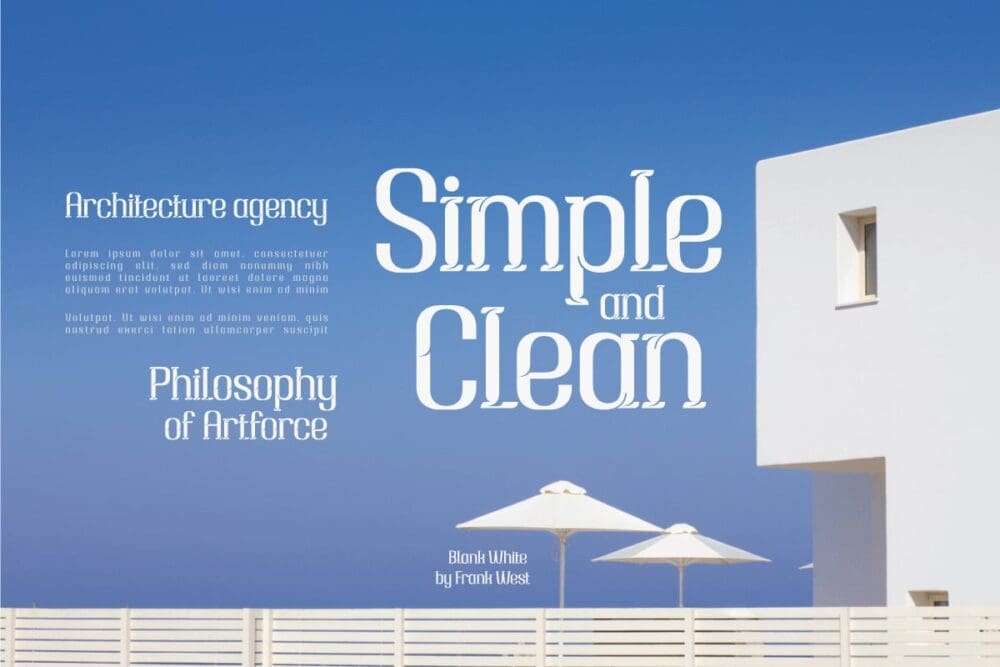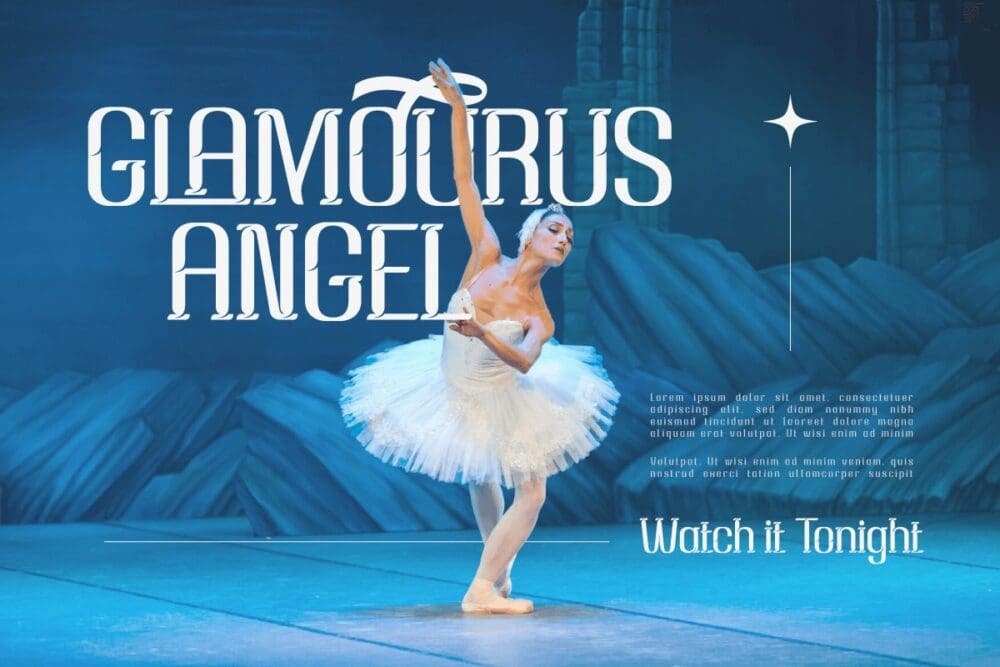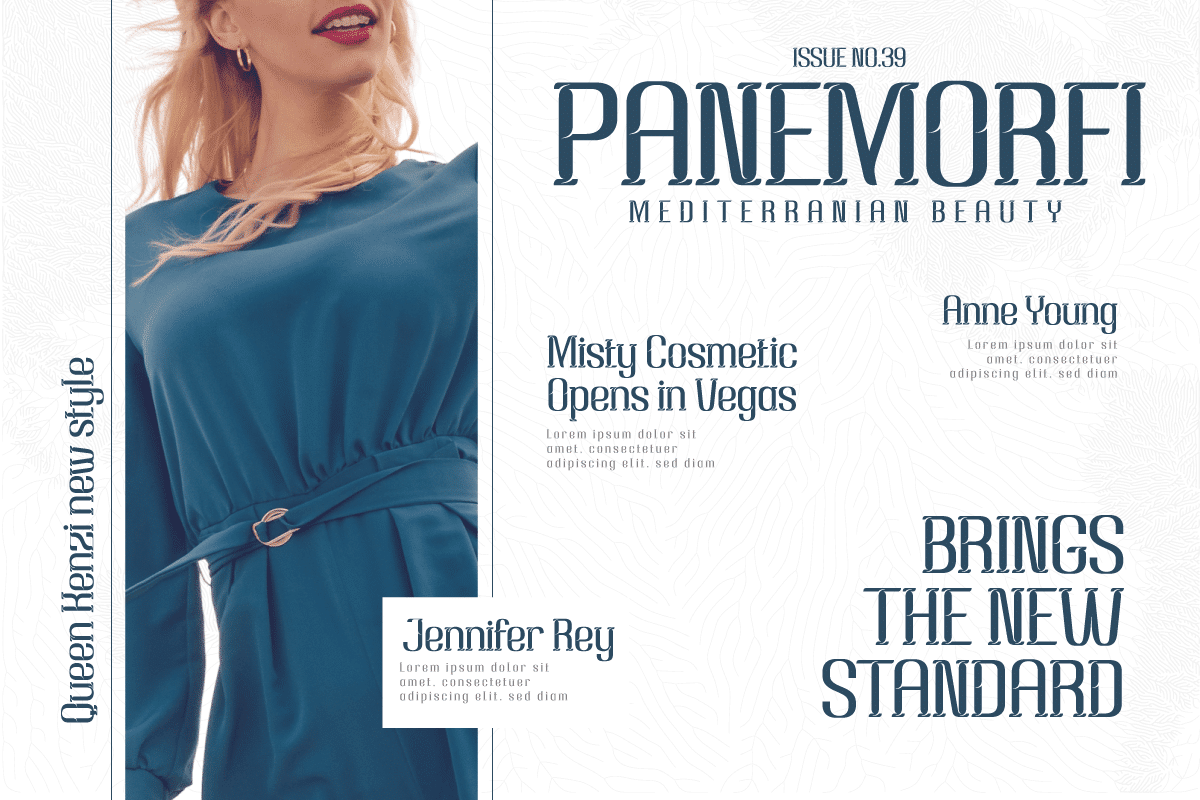
Hoojuy Serif Font
Hoojuy is a classic serif font ideal for projects involving classic or retro modernism. This font’s stylish and refined attributes will add a distinctive touch to your designs.
Hoojuy’s distinctive characteristics, like ligatures and alternatives, give it versatility and generate unexpected changes in the appearance of your text. You may quickly change the look and feel of your creative work.